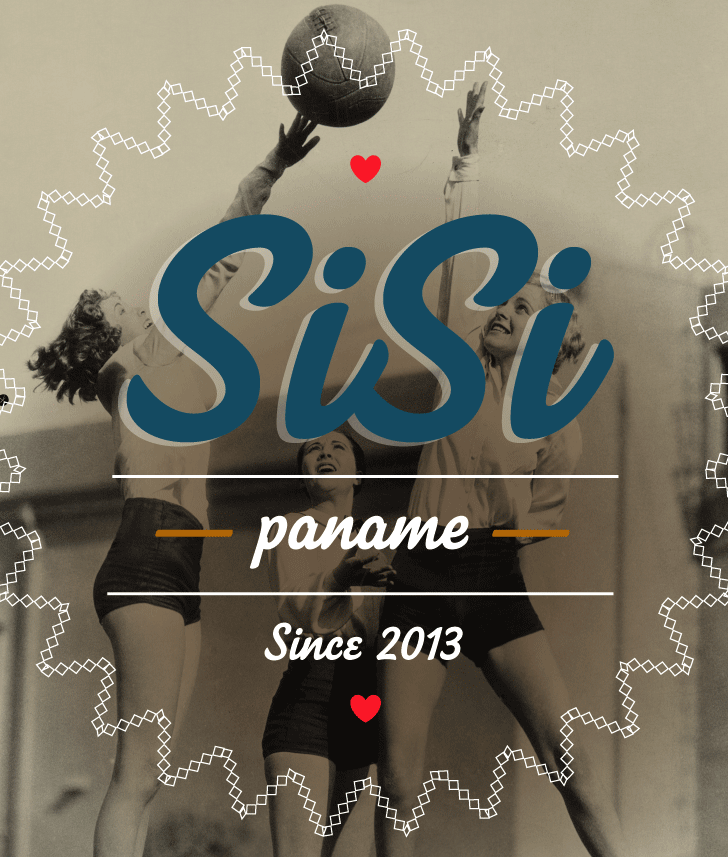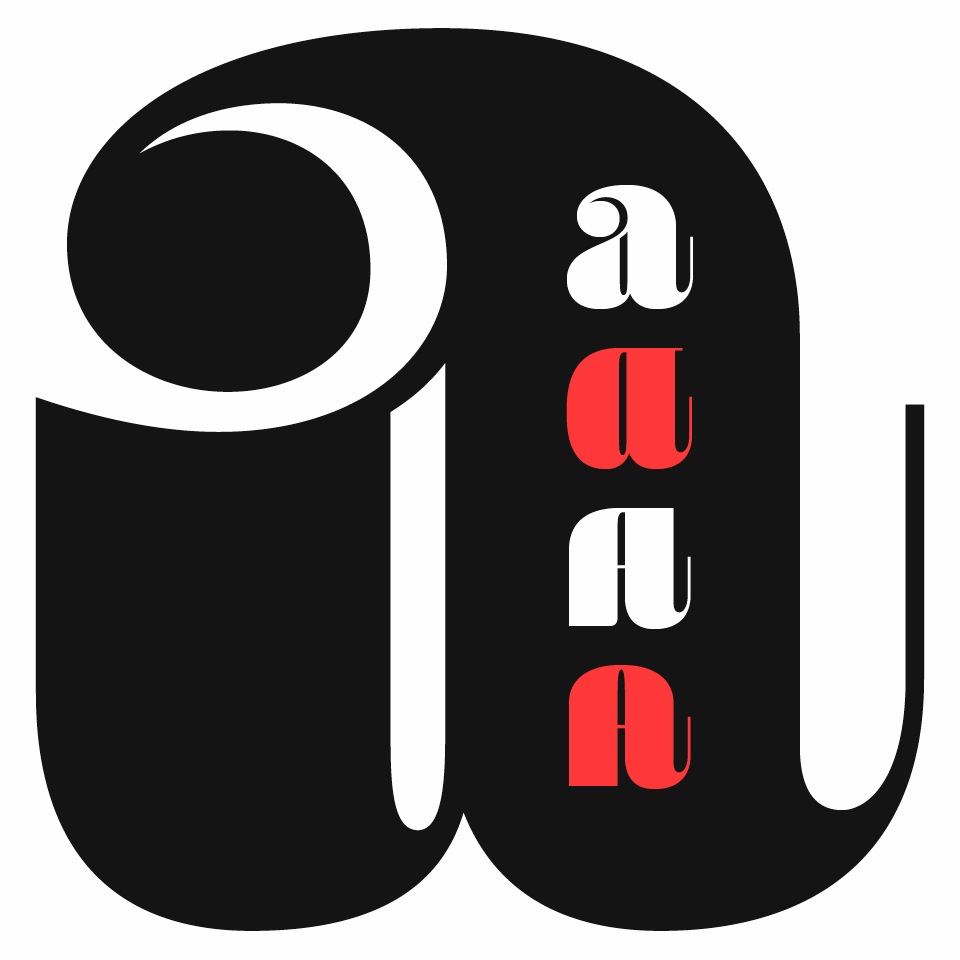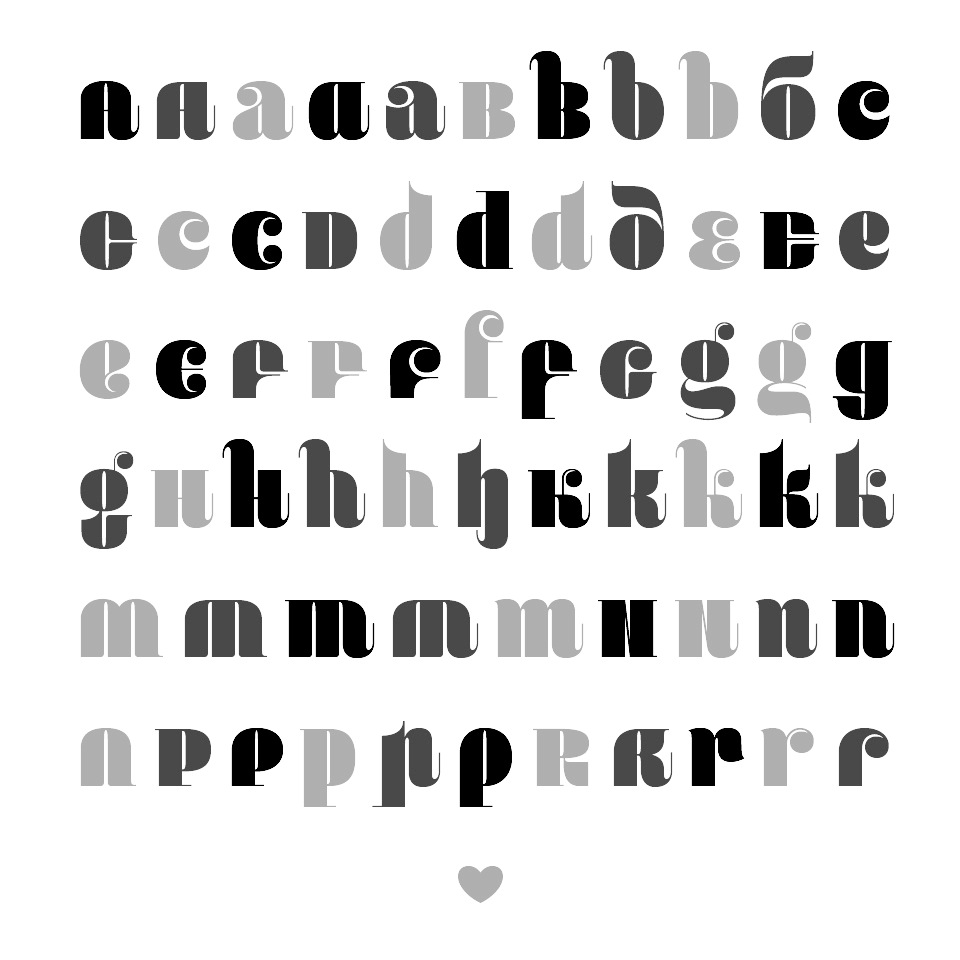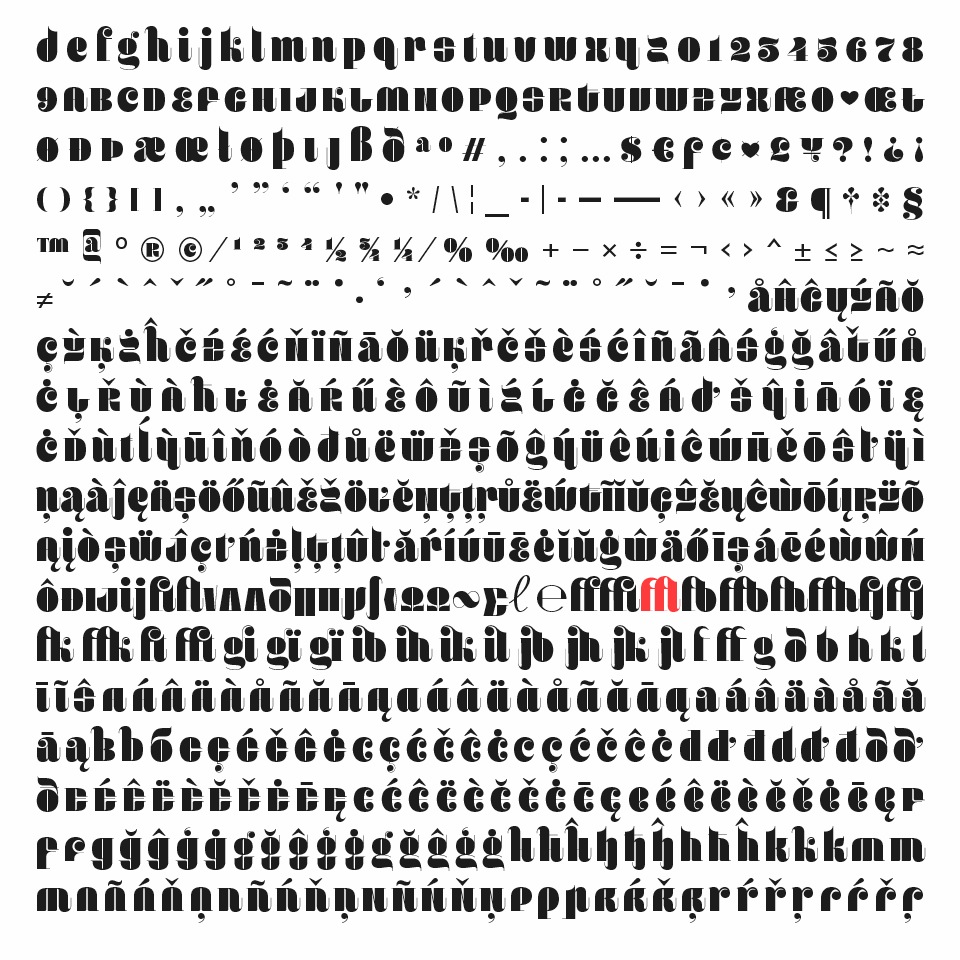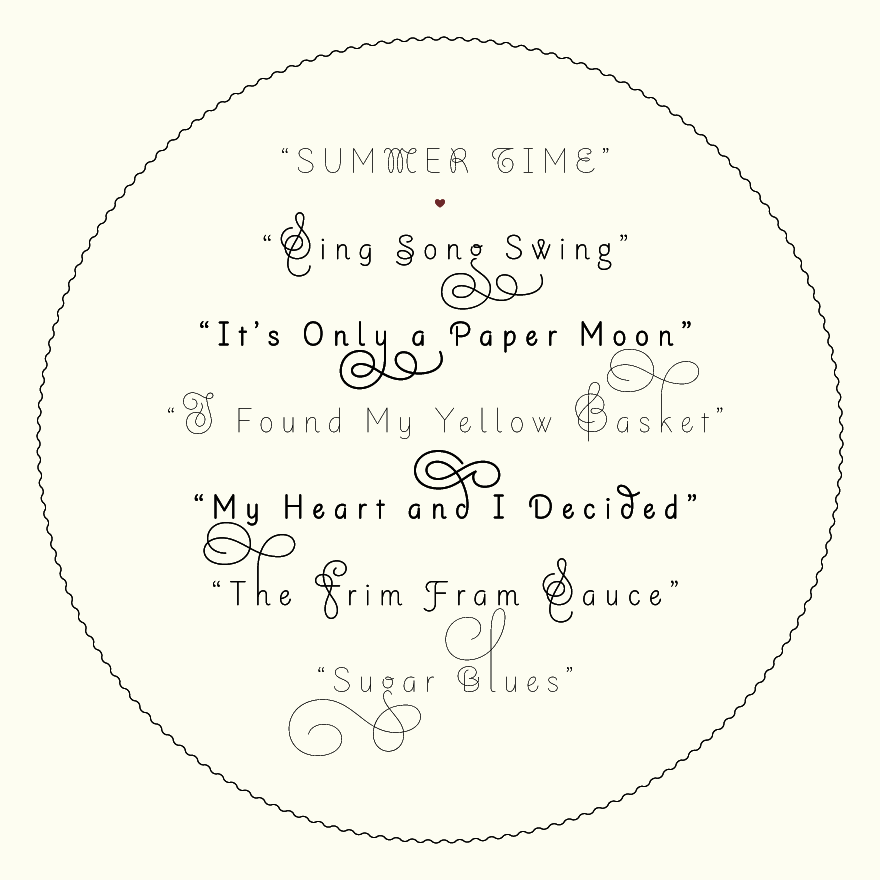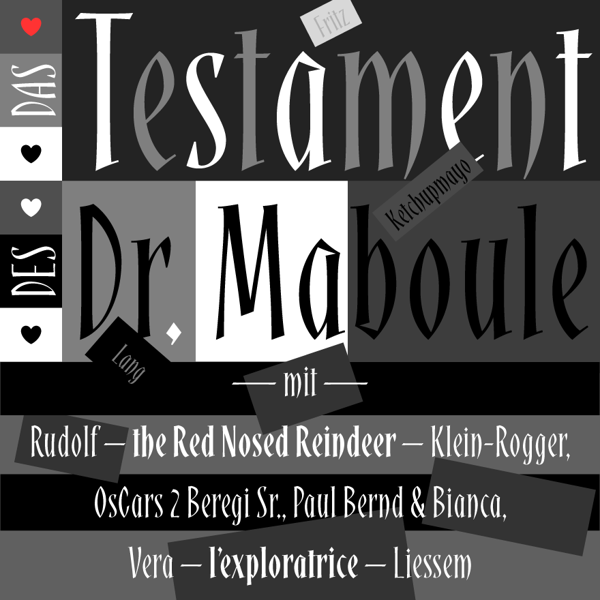
Gia Tran
Gia Tran is a self-taught calligrapher and type designer. He has worked for Dragon Rouge, 4uatre and A&Mcreative in Paris, as well as Saffron Brand Consultants in Madrid. Gia was the Type Director at the French foundry FontYou, which was founded by Gregori Vincens in 2013. He also teaches calligraphy and type design at various graphic design and visual communication schools such as Strate College Designer, Intuitlab and ESAV Marrakech. With Brahim Boucheikha, he founded the Paris and Casablanca-based design studio Babelfont.
Under the cover of Type Lovers and/or Fontyou in Paris, Gia Tran created the medieval typeface Court Hand (2012) and the blackletter typeface Gothic Fraktur (2012). He also did some great calligraphic pieces.
In 2013, together with Gregori Vincens, Alisa Nowak, Valentine Proust, and Elvire Volk at FontYou, Gia Tran created the monoline geometric sans typeface Younion FY. Younion One FY is free at Dafont. With Franck Montfermé, he co-designed the ball terminal beauty Squirrel FY. The letters of this ultra-fat didone reveal audacious geometric smoothness at large sizes.
Codesigner of Kaili FY (2013: an exotic typeface with crazy ligatures, inspired by Indian scripts, by Gregori Vincens, Bertrand Reguron, Gia Tran and Alisa Nowak) at Fontyou.
The EPS format display typeface Alice FY (2013) was co-designed by Alisa Nowak, Micaela Neustadt, Gia Tran, Bertrand Reguron and Valentine Proust at Fontyou. It was inspired by Adrien Genevard's lettering. Sub-themes are Alice in Wonderland and playing cards. The EPS format frilly script typeface Lullaby FY (2013) was co-designed by Alisa Nowak, Micaela Neustadt, Gia Tran, Bertrand Reguron and Valentine Proust at Fontyou. It too was inspired by Adrien Genevard's lettering. Exquise FY (2013) is a fashion mag didone co-designed by Bertrand Reguron, Alisa Nowak, Valentine Proust, Elvire Volk and Gia Tran at Fontyou. Gia Tran and Jason Vandenberg created the decorative typeface Ella FY (2013, Fontyou). Gia Tran, Alisa Novak, Micaela Neustadt, Bertrand Reguron and Grégori Vincens co-designed the curvy stressed elliptical sans typeface Bruum FY (2013).
Beaurencourt FY (2013) is a 19th centery secretary's hand co-designed with Jeremie Hornus.
Gregori Vincens, Gia Tran, J&eacxute;rémie Hornus and Alisa Nowak co-designed the humanist sans typeface Klaus FY (2013).
At Fontyou, Benjamin Lieb, Gia Tran and Julien Priez co-designed the hand-drawn typeface Brixton FY (2013). Not to be confused with two earlier typefaces called Brixton, one by Tom Chalky, and one by Luke Ferrand. Since two of the three Brixtons are commercial, I expect FontYou to change the name imminently.
In 2014, Gia Tran and Bertrand Reguron co-designed the zombie script Vidok FY (free at Dafont). Together, Elliott Amblard (France) and Gia Tran created the bold signage / retro baseball script typeface Paname FY at FontYou in 2014. Minuit FY (2014, by Jason Vandenberg and Gia Tran) is a beautiful angular angry calligraphic display typeface. The punchy poster typeface Kraaken FY (2014) was designed by the FontYou team of Bertrand Reguron, Alice Resseguier, Valentine Proust, Julien Priez, Gia Tran, Jérémie Hornus, and Alisa Nowak.
Bertrand Reguron, Alice Resseguier and Gia Tran co-designed the retro signage script typeface Coco FY (2014).
Alice Resseguier and Gia Tran co-designed the girly script typeface Lola Lola FY (2014). This typeface was forcibly renamed Chelly FY a few days after its first appearance, possibly because there already was a typeface called Lola by Laura Messeguer.
Codesigner with illustrator Quentin Vijoux of the hand-printed typeface Léon FY (2014).
In 2014, he published the modular kitchen tile typeface Dorum FY with Julien Thébault.
Benjamin Lieb and Gia Tran co-designed the 4-style retro display family Belleville FY (2014).
With Evgeny Tkhorzhevsky, he designed the creamy signage script typefaces Maio FY (2014) and Kumiz FY [Maio renamed].
Hansom Slab FY (2014, Gia Tran, Jeremie Hornus and Alisa Nowak).